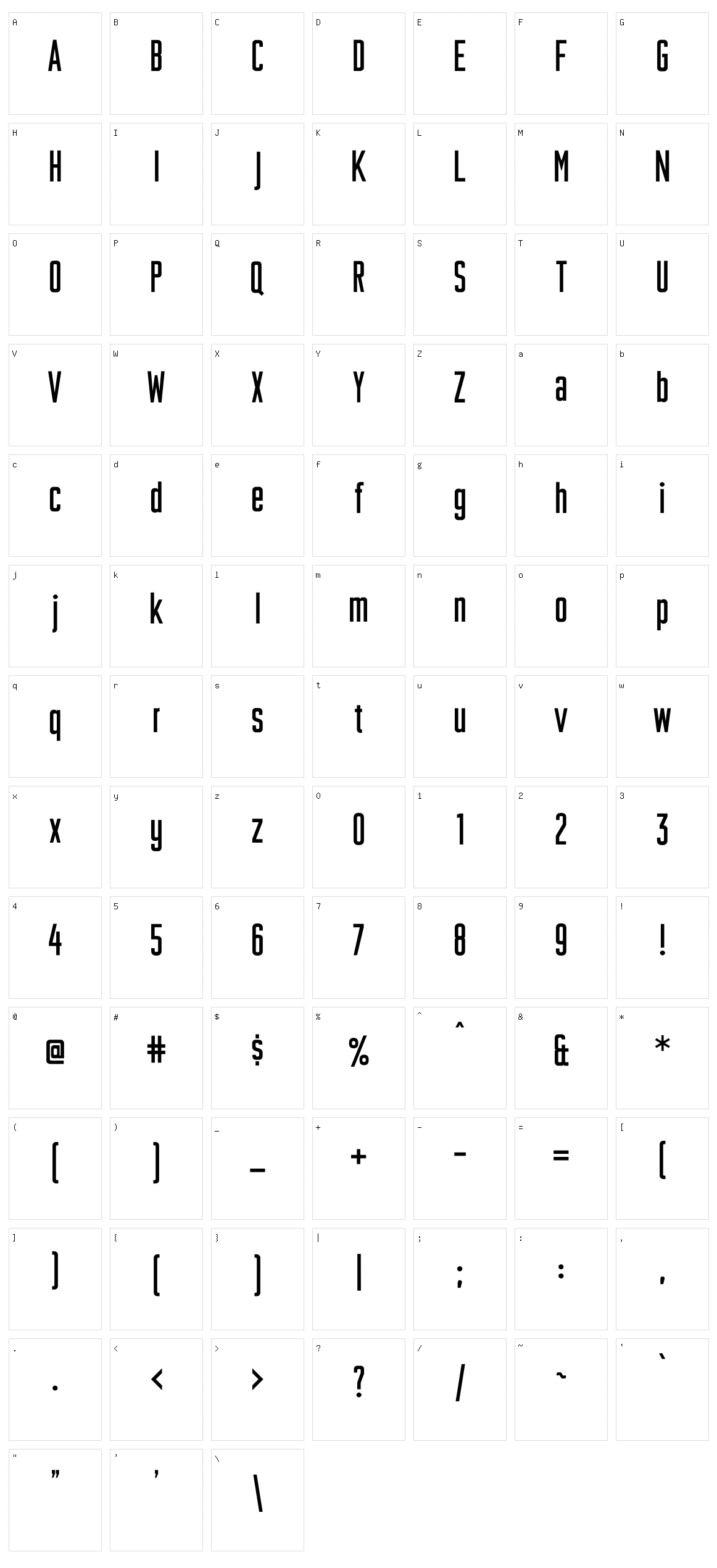
Typeface Plakative Grotesk
(english) A Geometric Poster Sans
(german) Eine geometrische Plakat-Grotesk
- adjusted kerning (kerning by classes) and
width by hand
- added eastern european glyphs, ffi and ffl
- added opentype-feature GPOS liga and cv0x
- addes cedilla and [C|c]cedilla
- fixed wrog unicode longs-t lig. Figuer Zero (0),
- changed shape of figures 0 to 9
- checked and corrected the baseline of all letters
- added hungar-umlauts